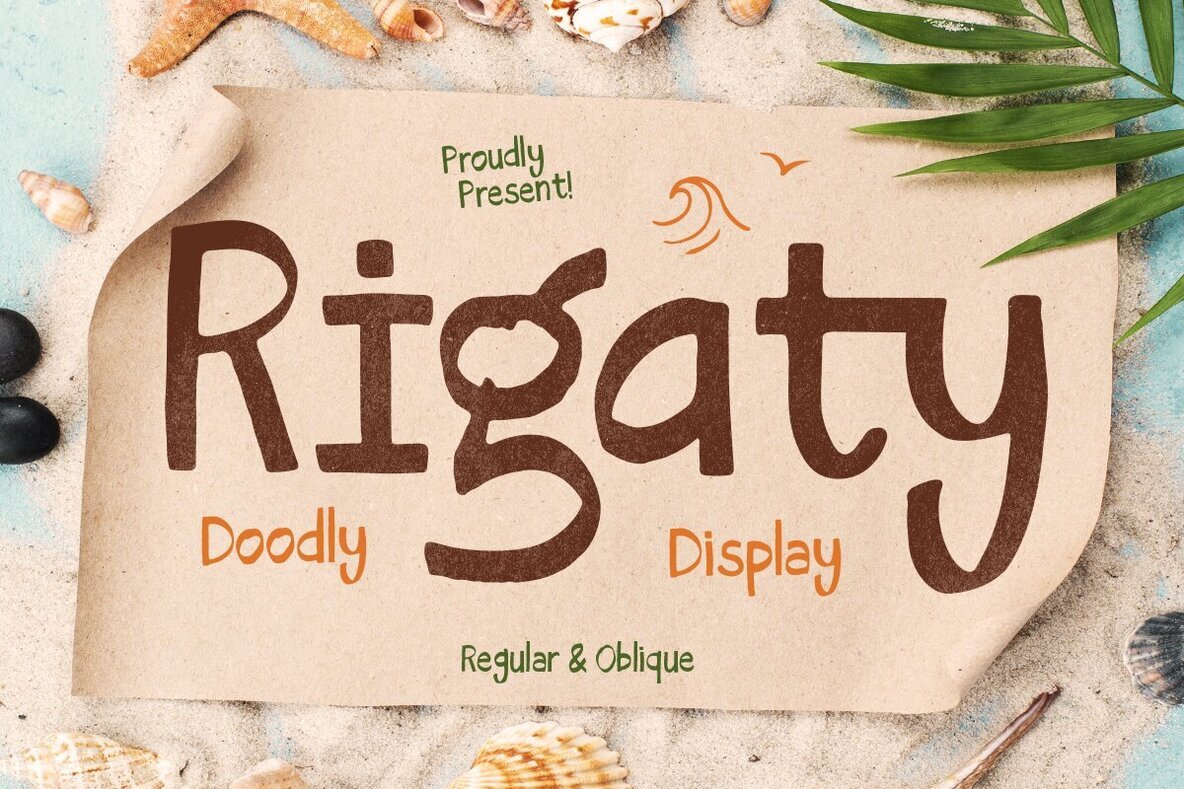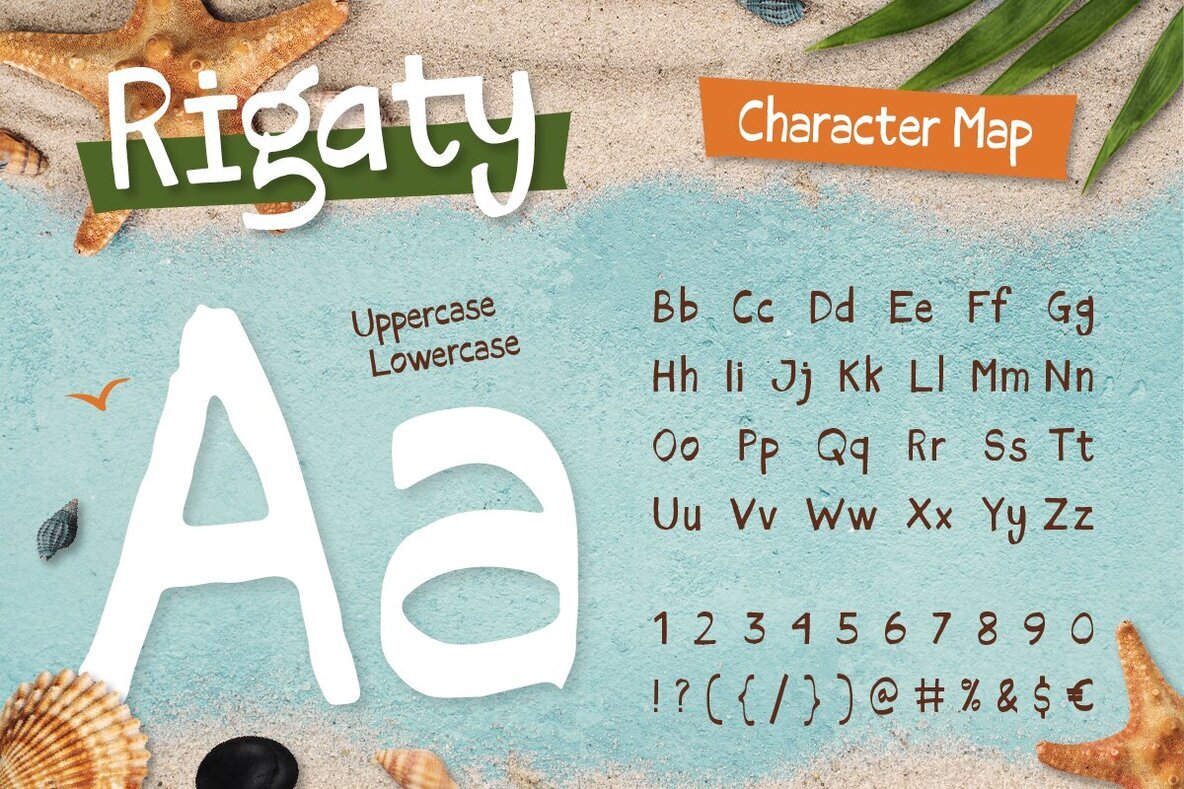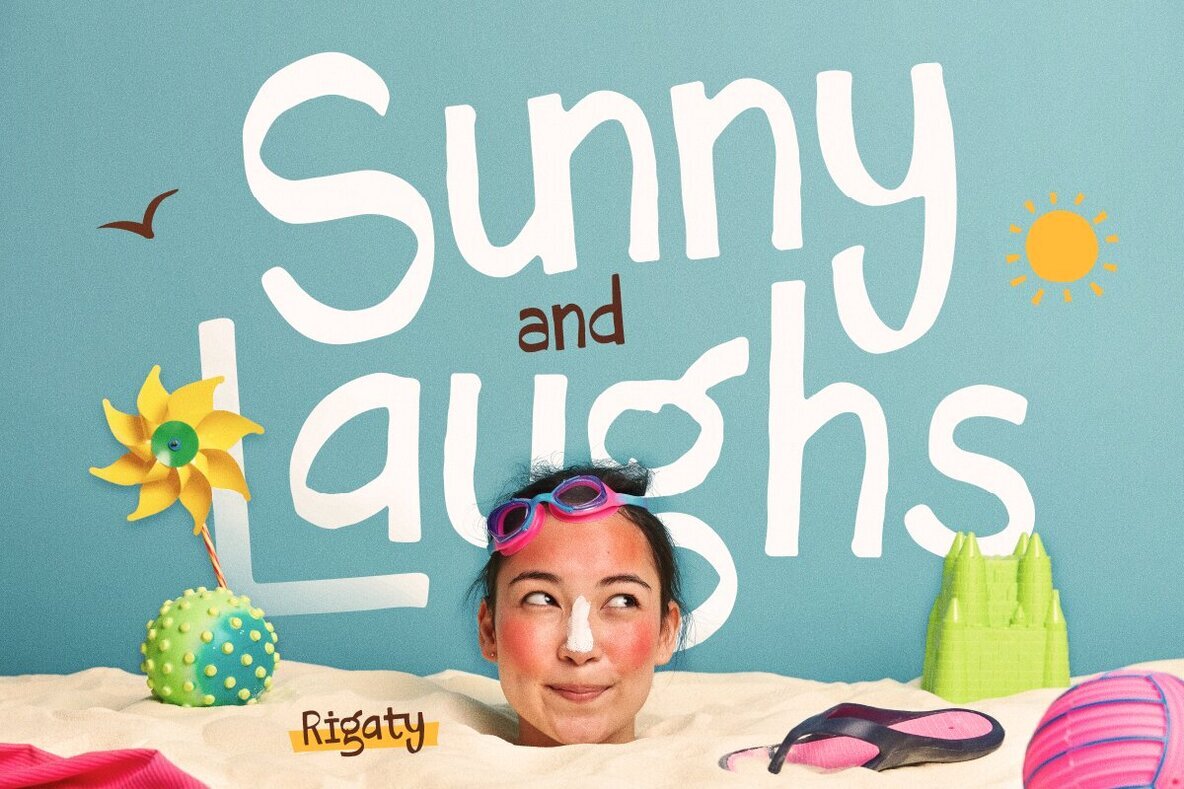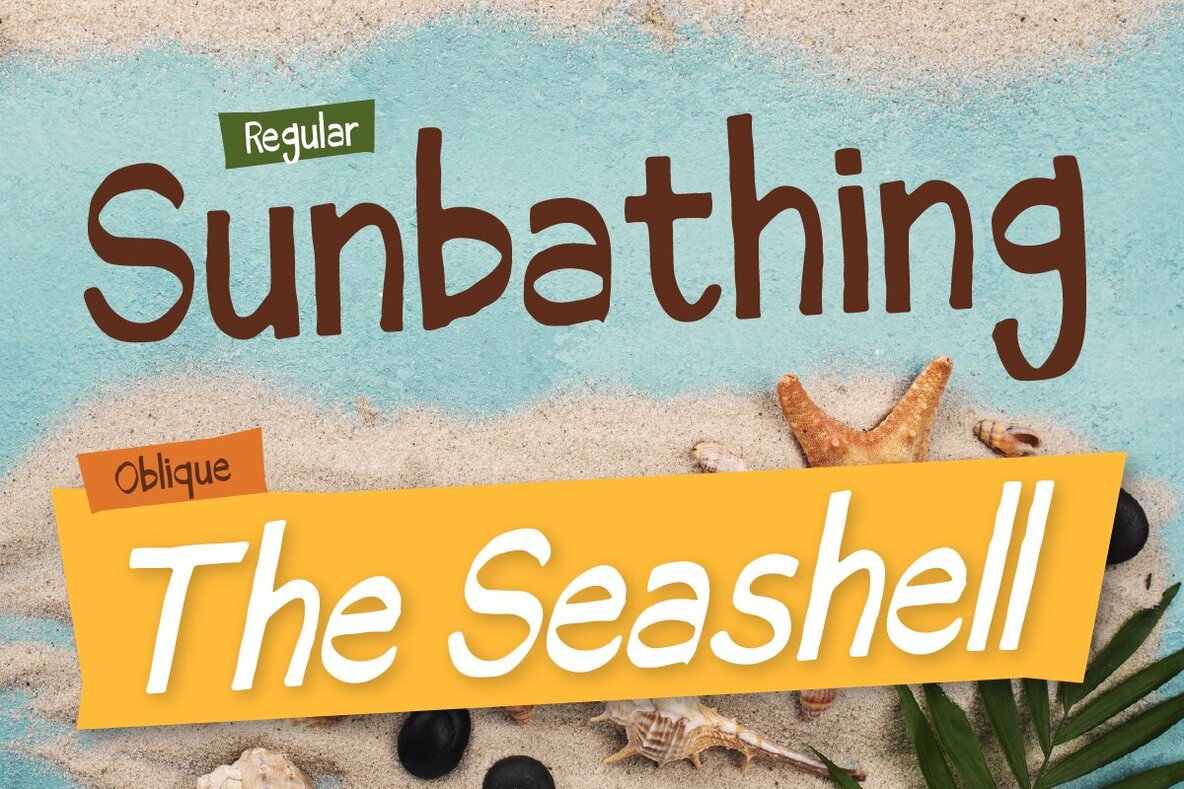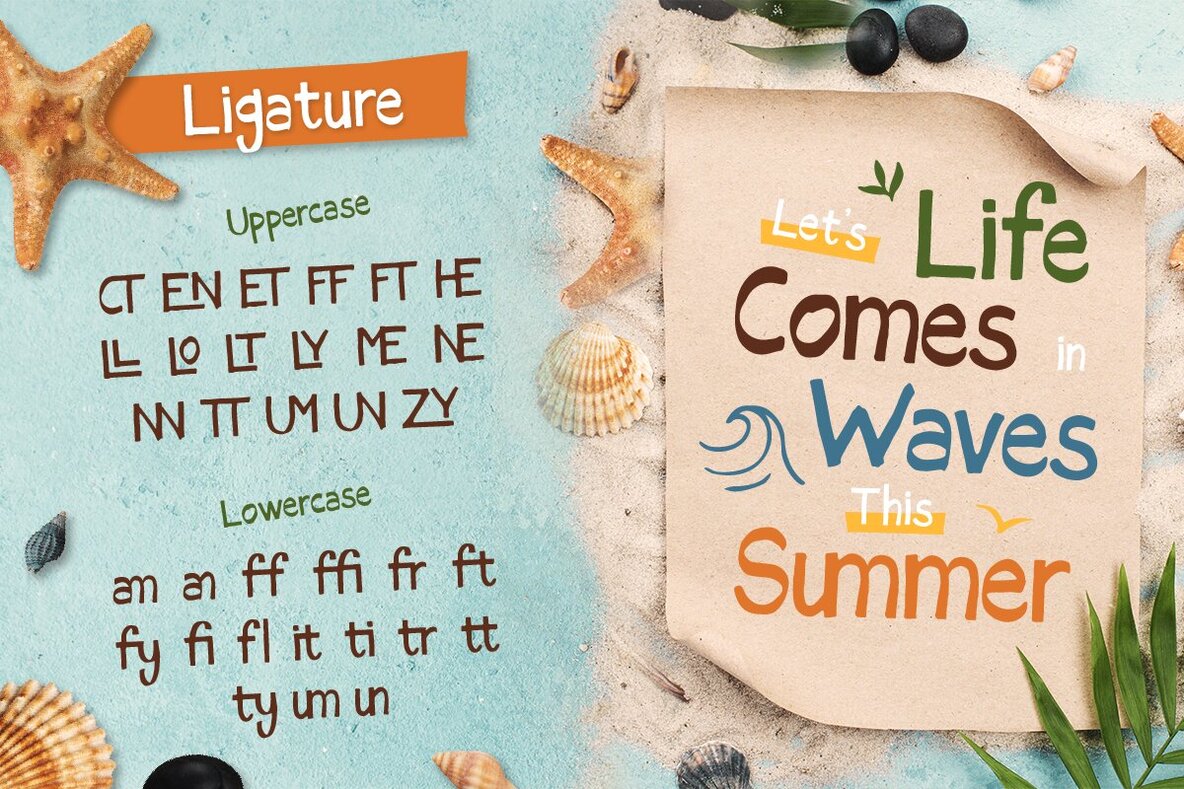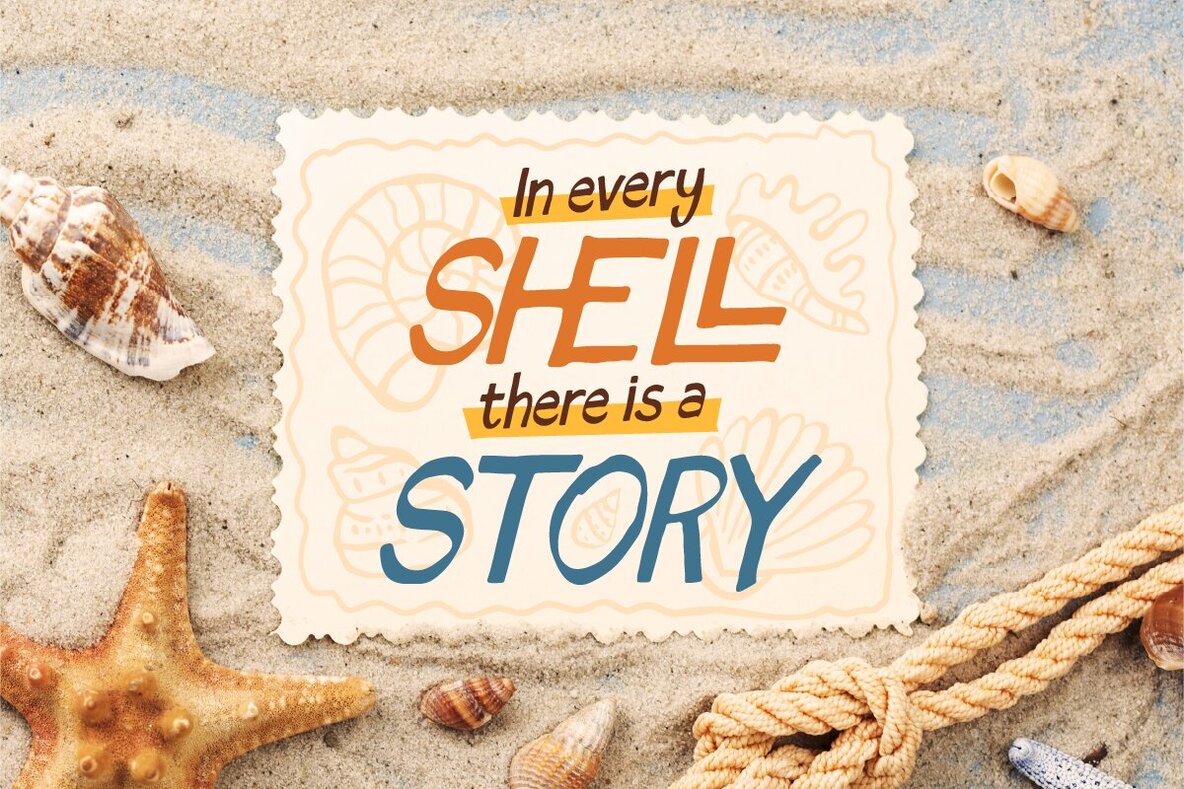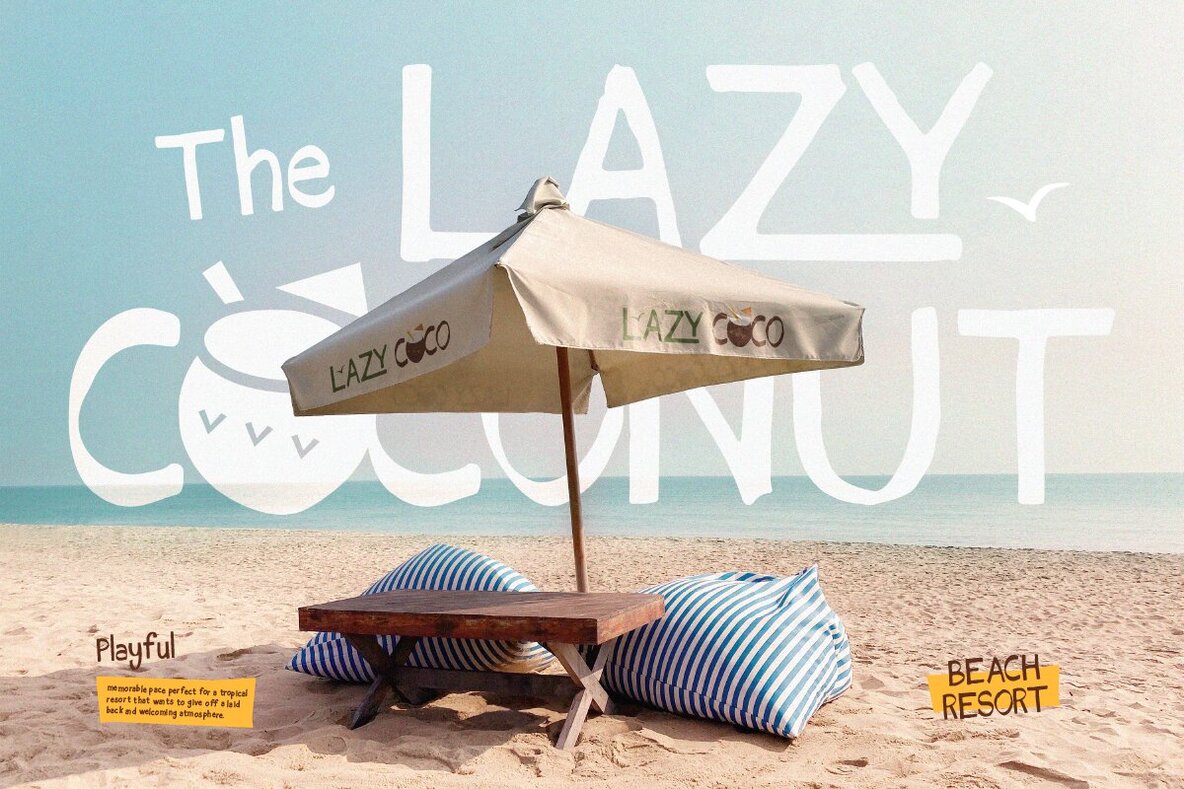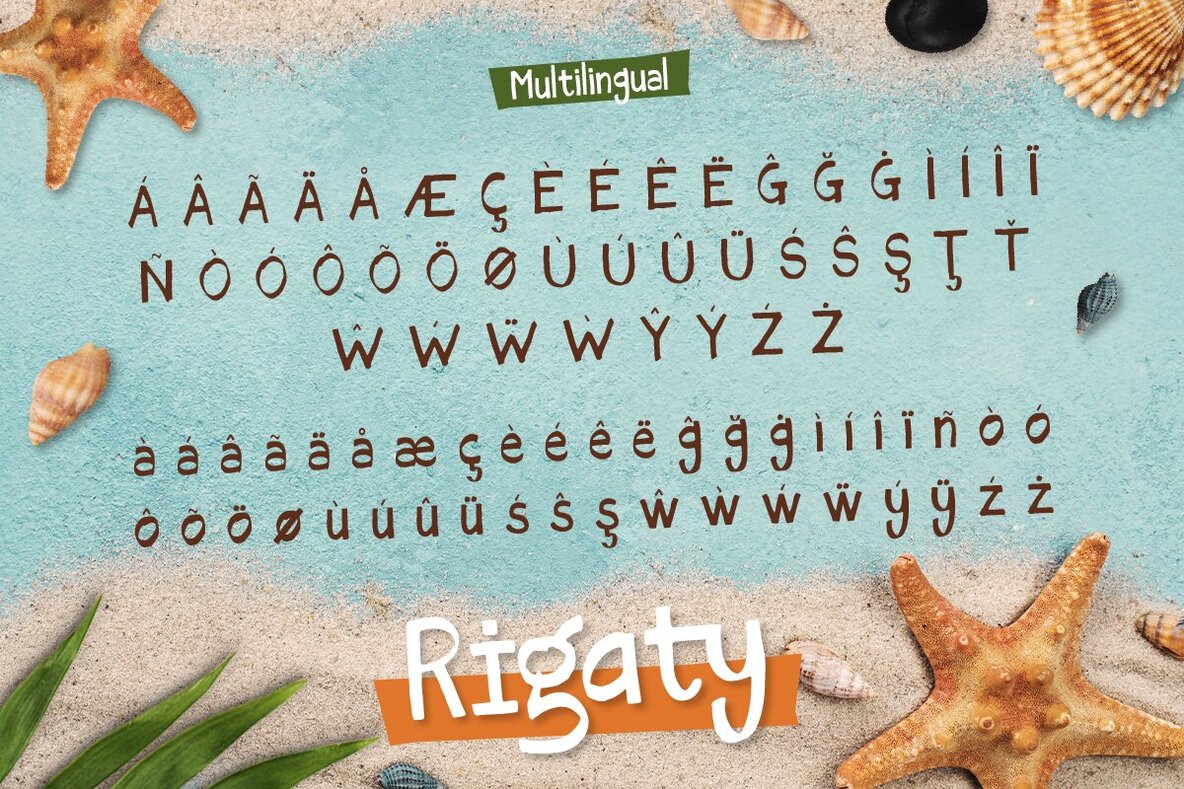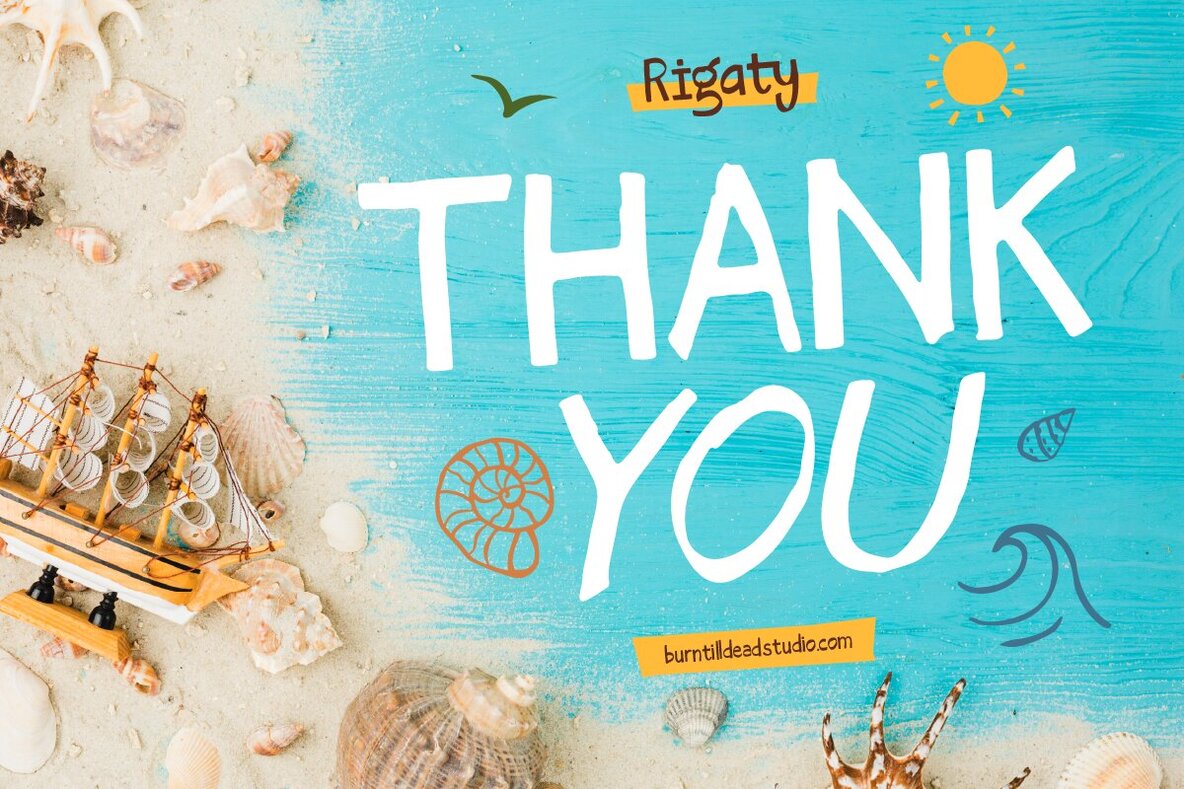
Rigaty Font
Rigaty Regular
Rigaty Oblique
Discover Rigaty, a charming doodle display font that combines playful vibes with a touch of cuteness. Its handmade, quirky, and irregular shapes make Rigaty captivating and unforgettable. Available in two styles—Regular and Oblique—this font is perfect for designs that need a personal and approachable feel. Whether you're working on summer-themed posters, playful packaging, children's books, or cheerful quote graphics, Rigaty adds a burst of personality to any project.Rigaty: A Playful Doodle Display Font
Features of Rigaty